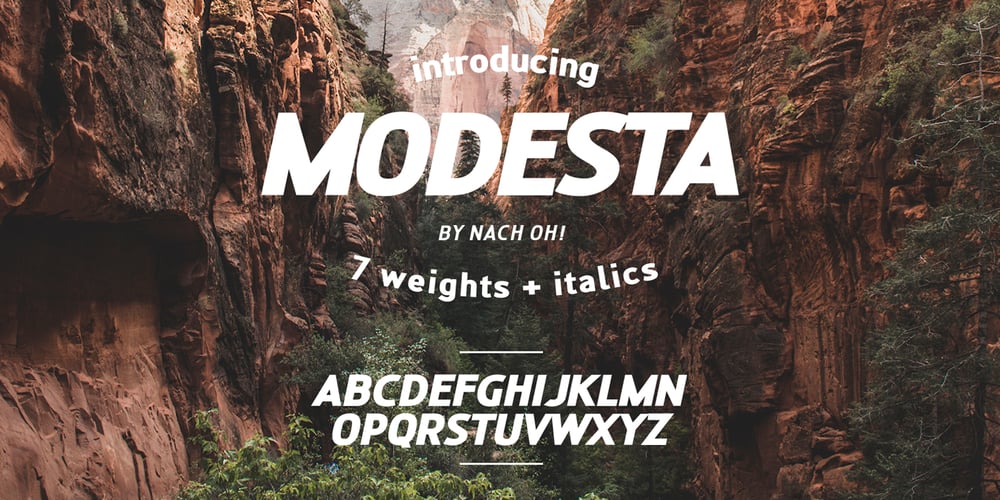
Modesta Font Family was designed by Nach Oh! and published by OhType!. Modesta contains 14 styles and family package options. Modesta Sans is a Neo Grotesque sans serif typefamily of seven weights plus matching italics. Inspired by Didone serif fonts and the first Sans serif types from the late 19th century and early 20th century, It reduces many of the eccentricities in order to make them more suitable to modern tastes. Every weight has more than 220 characters and includes uppercase, lowercase, numbers, special characters and a powerful opentype features. Perfectly suited for graphic design, headlines, advertisements, and any display use. It could easily work for editorial design, corporate, web, signage and many other uses in print and digital media.